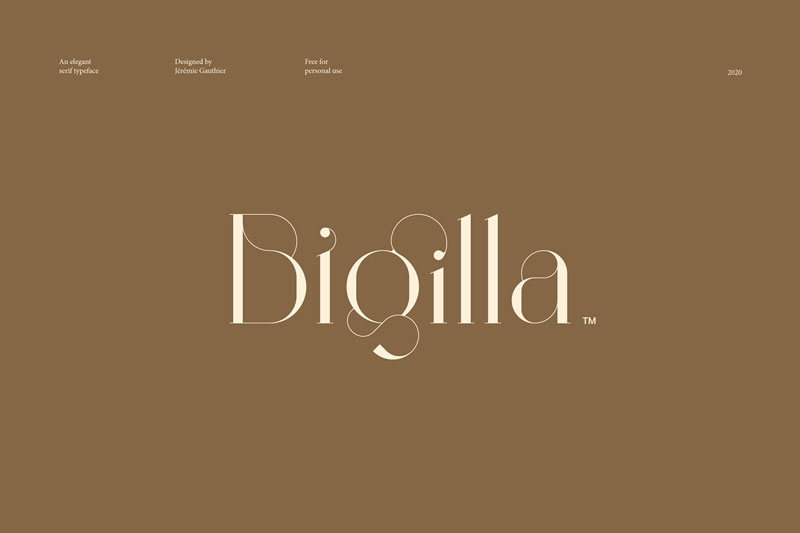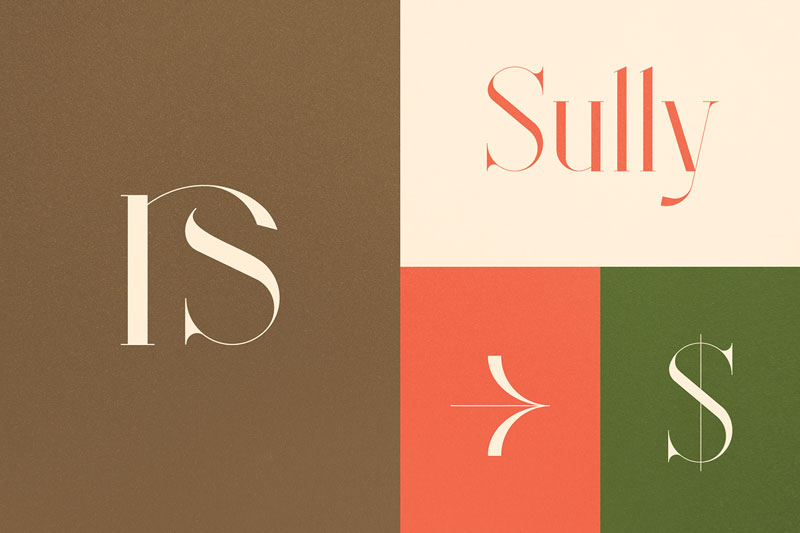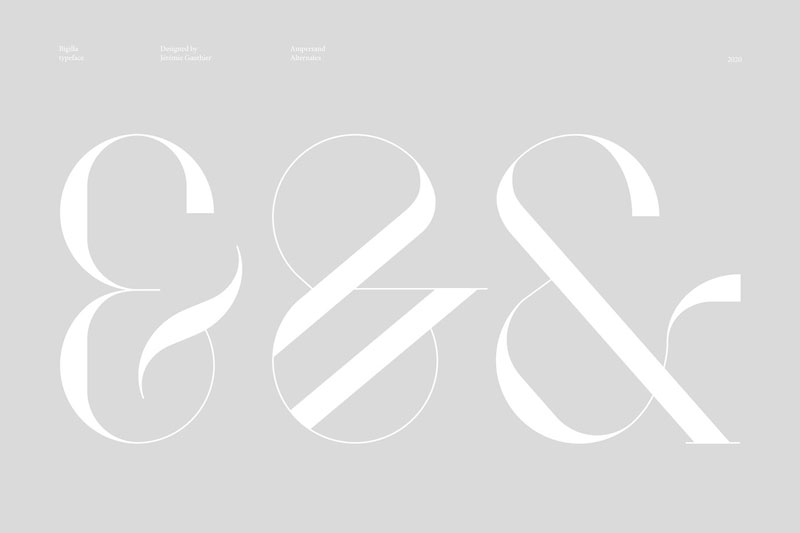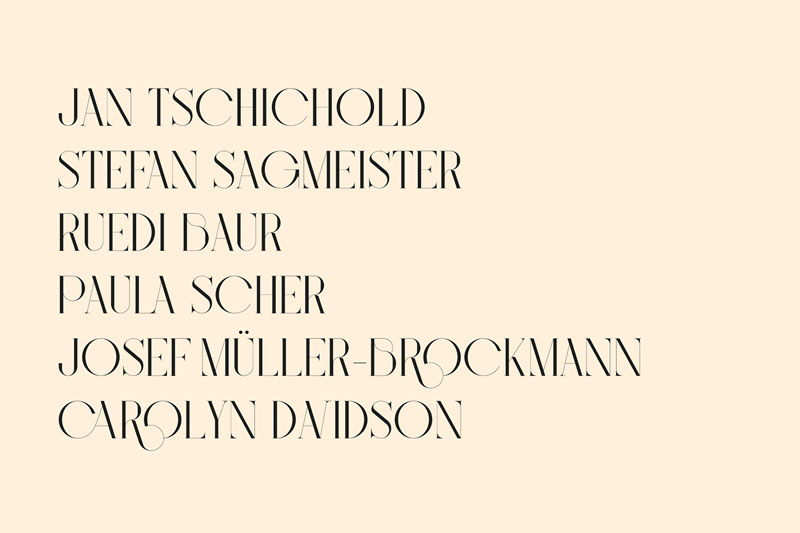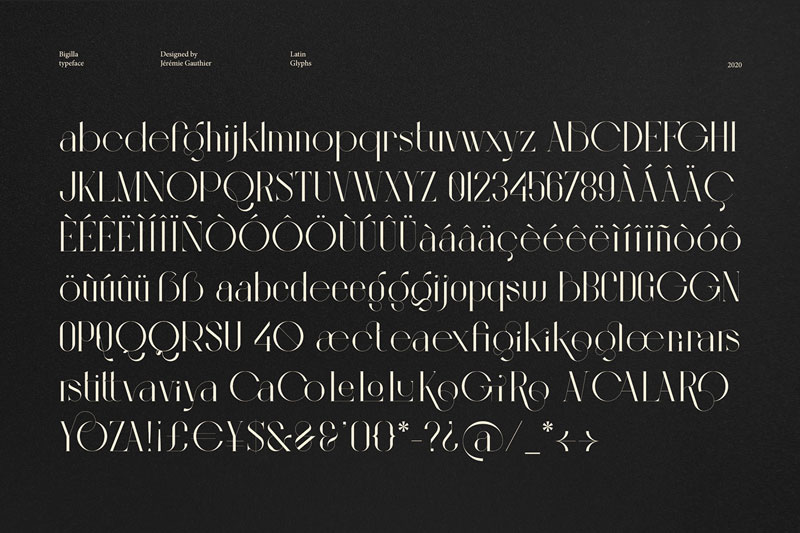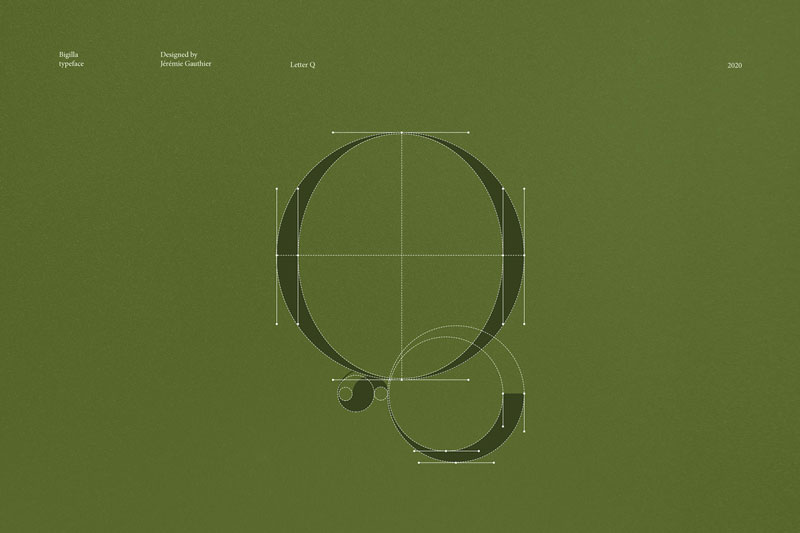
Bigilla™ Font
Bigilla™ is a display serif typeface with 2 font weights (Regular-Bold) that include many ligatures and alternates. This typeface is multilingual and perfect for Branding, posters, Magazines, packaging designs and so much more.